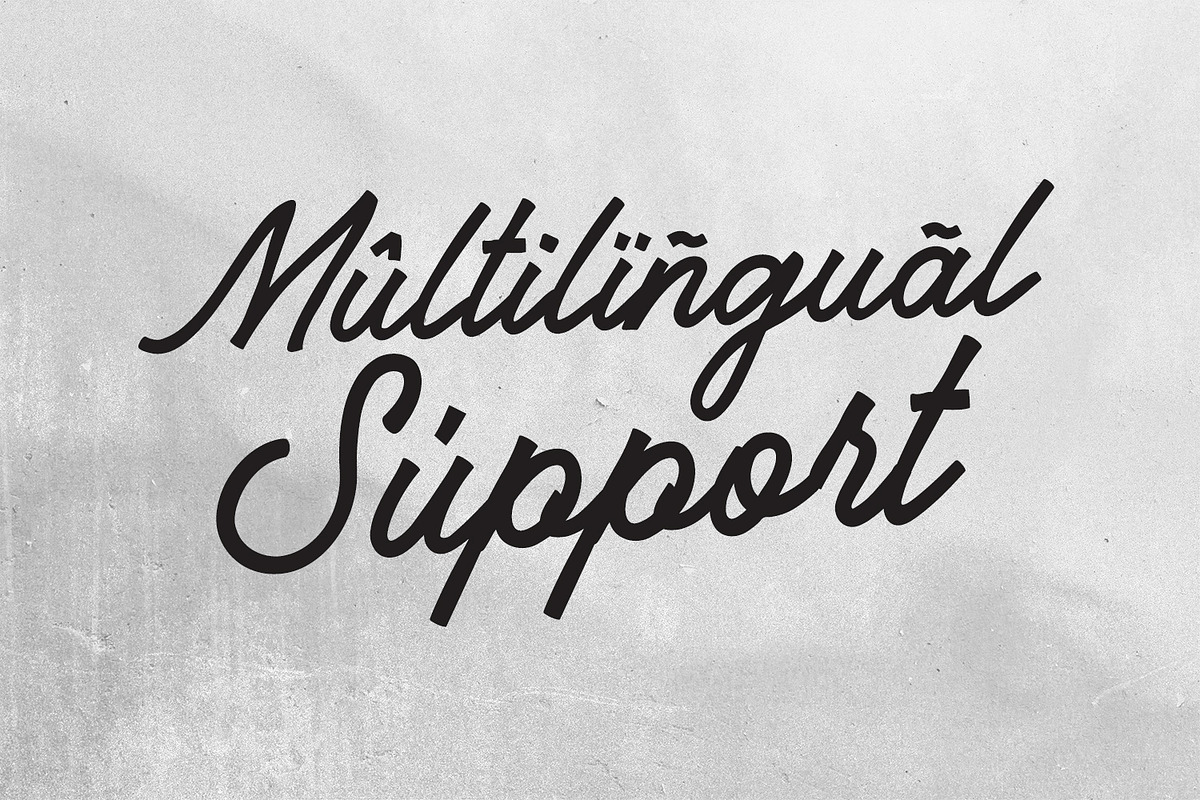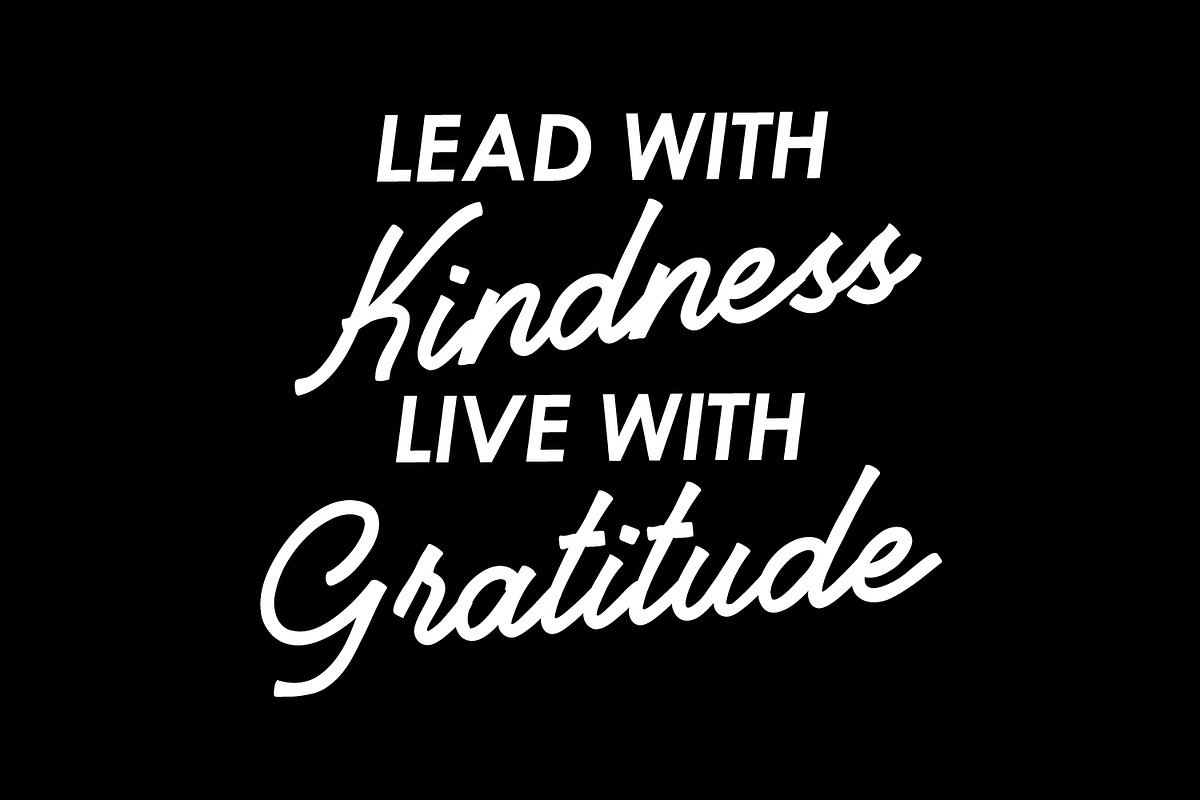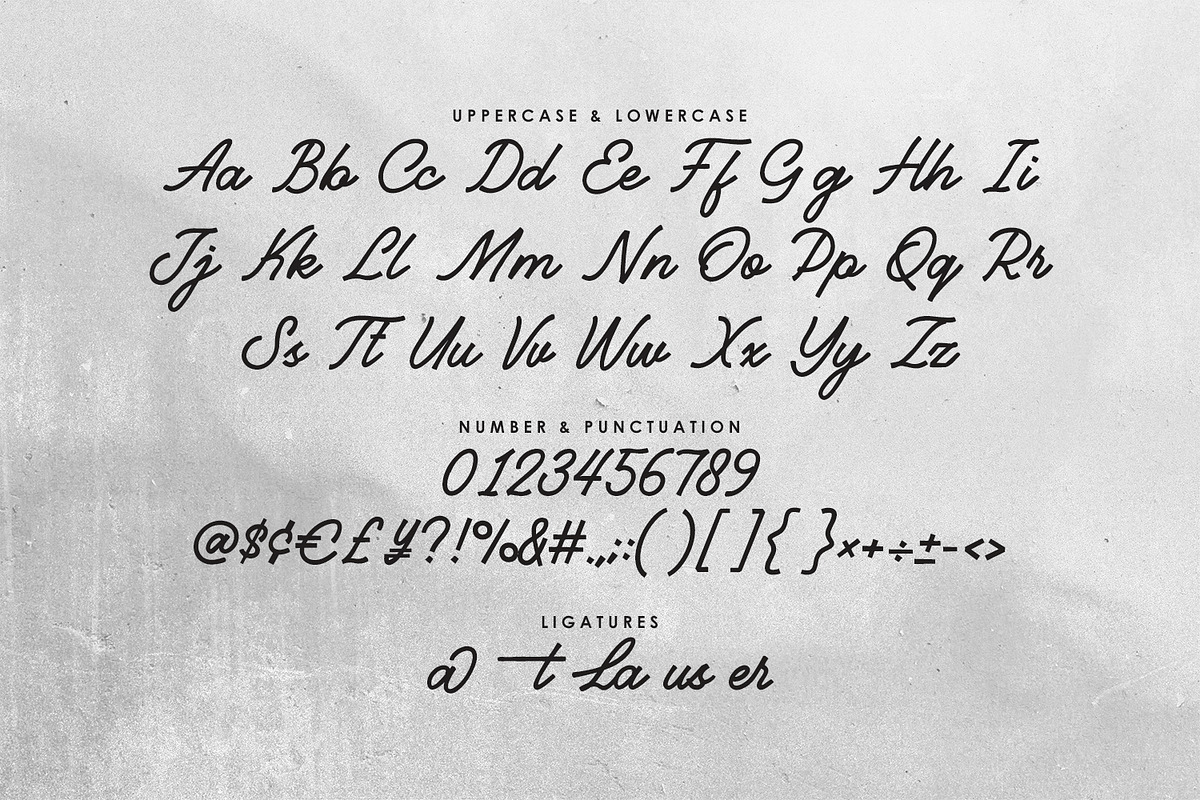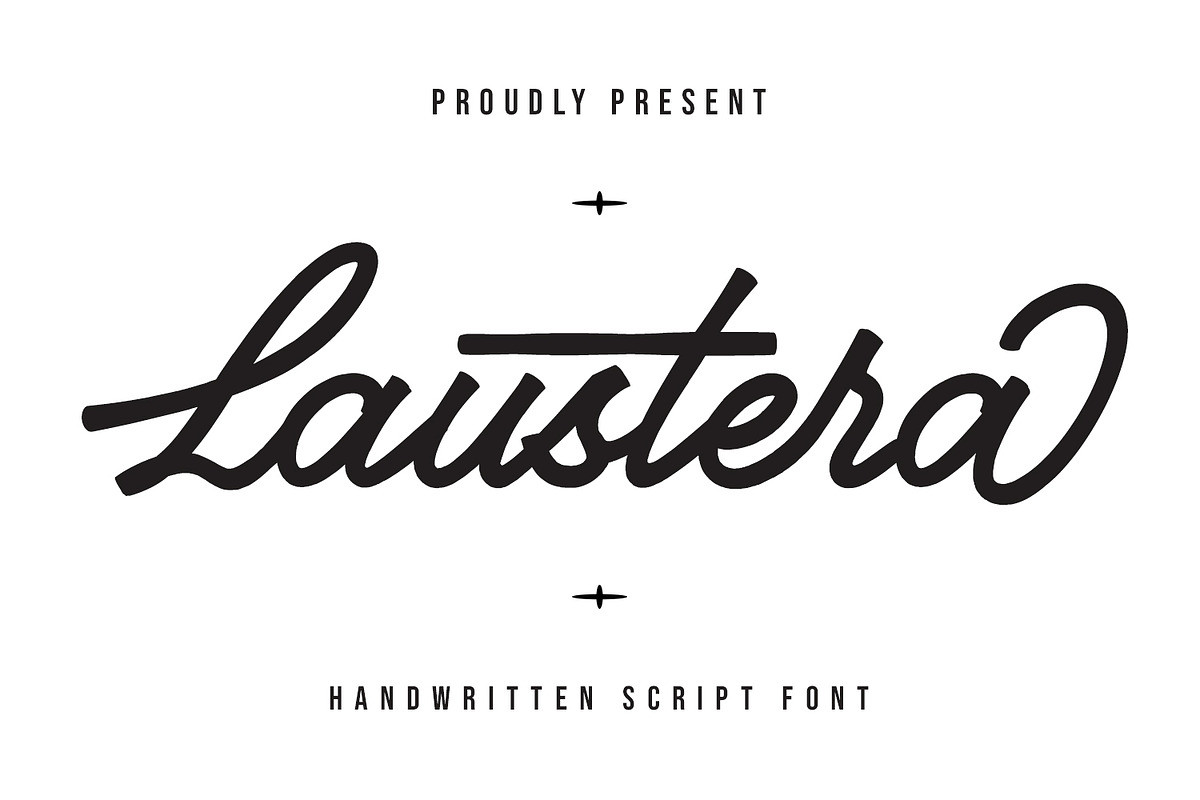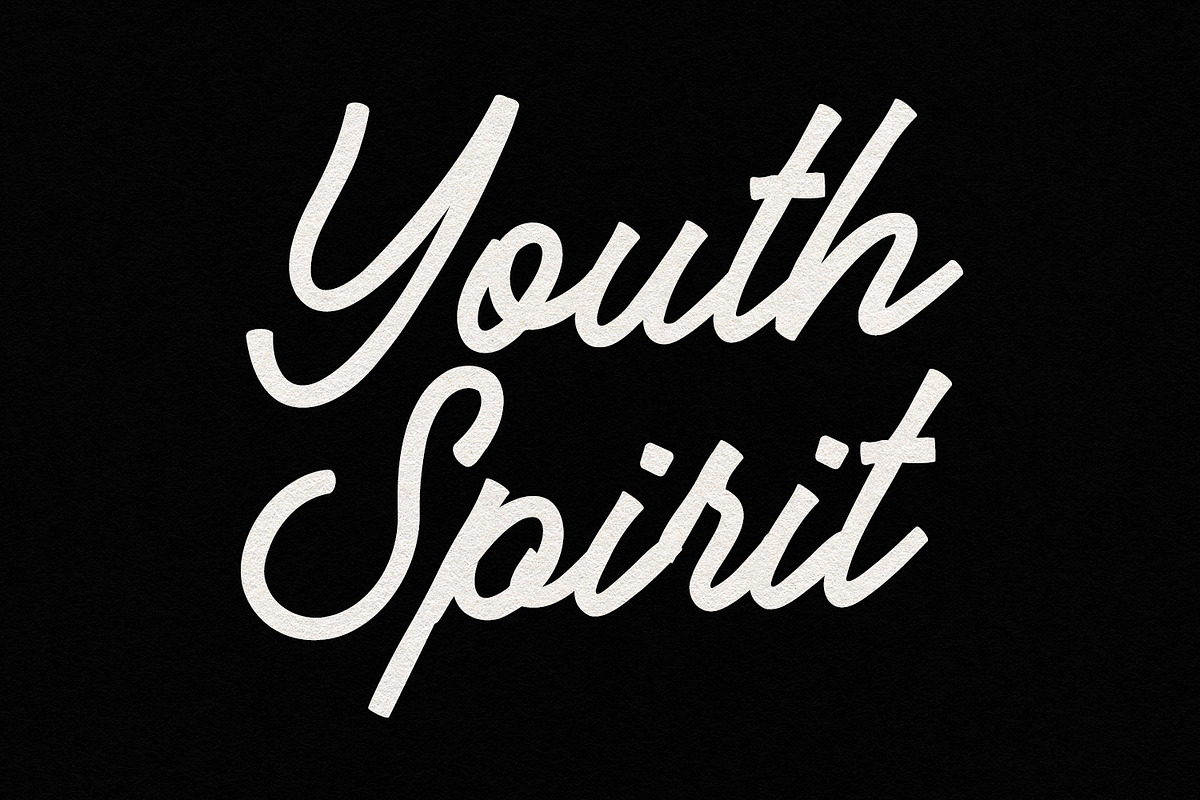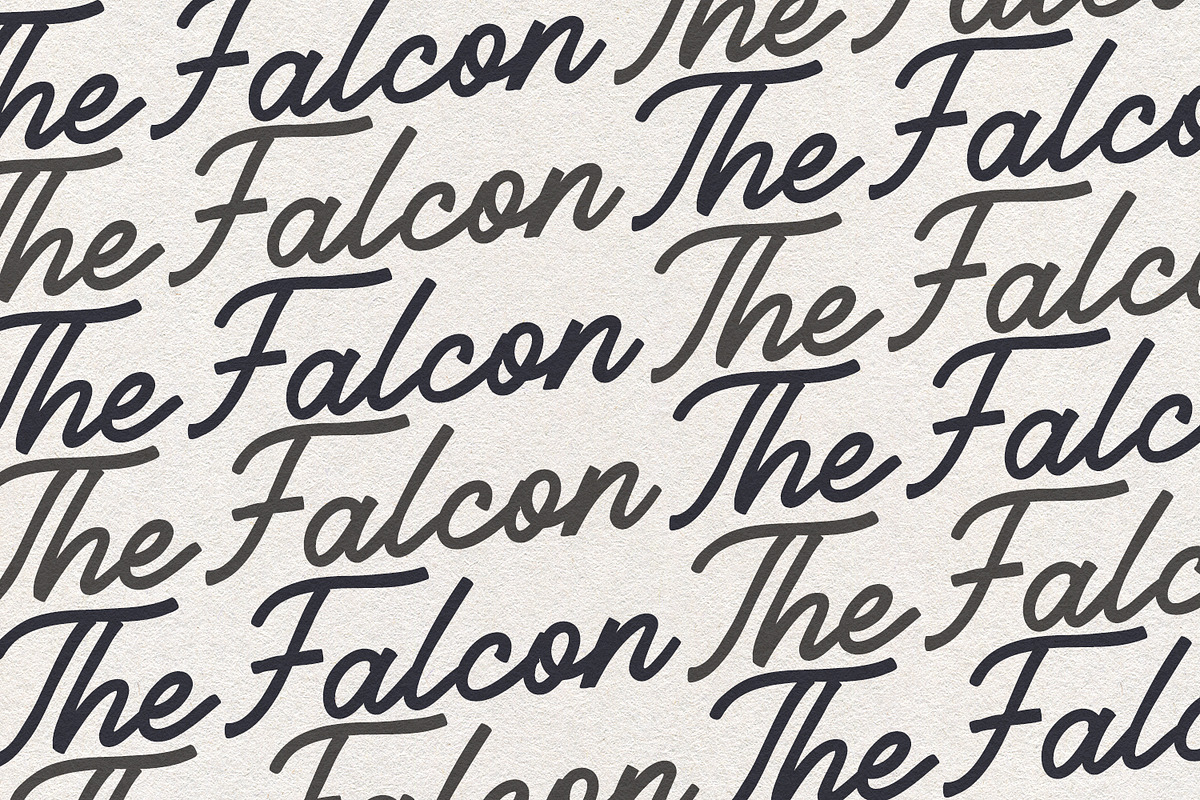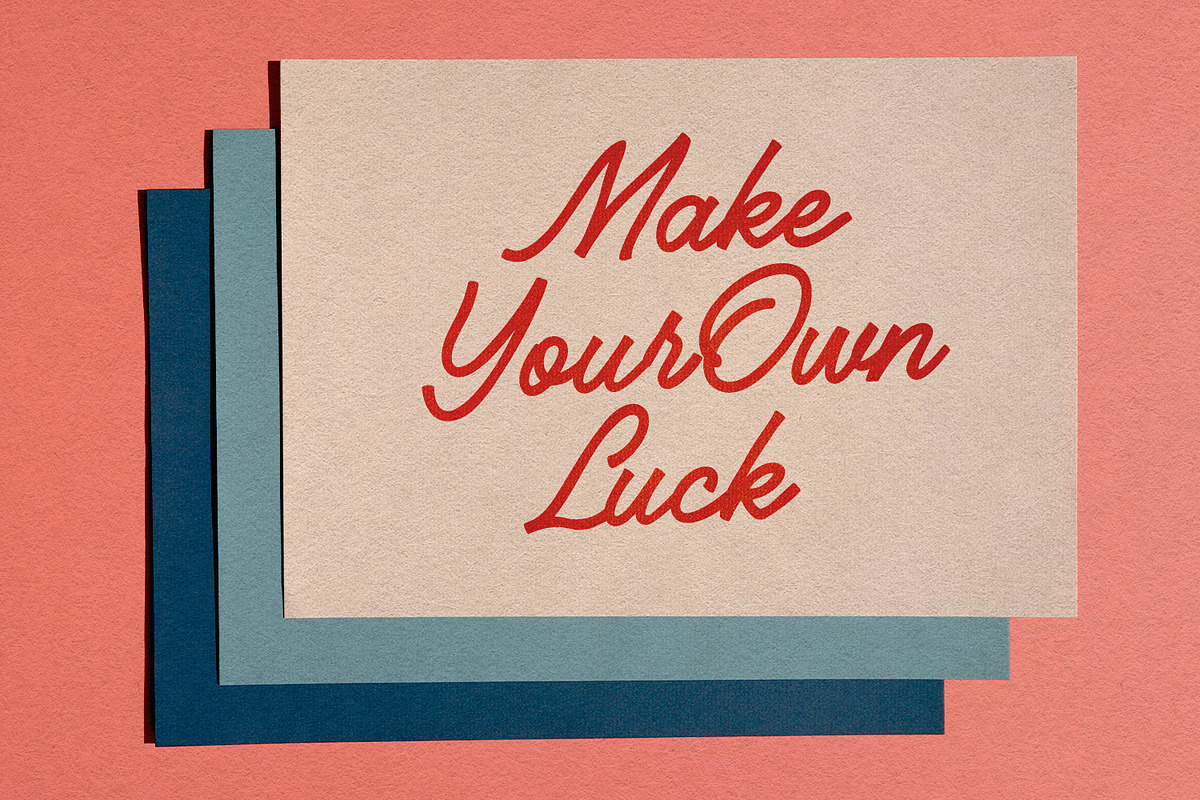
Laustera Script Font
Laustera casual signature script handmade font. Fun character with a bit of ligatures and alternate. To give you an extra creative work. Laustera font is good for logo design, Social media, Movie Titles, Books Titles, a short text even a long text letter and good for your secondary text font with script or serif. Make a stunning work with Laustera font.